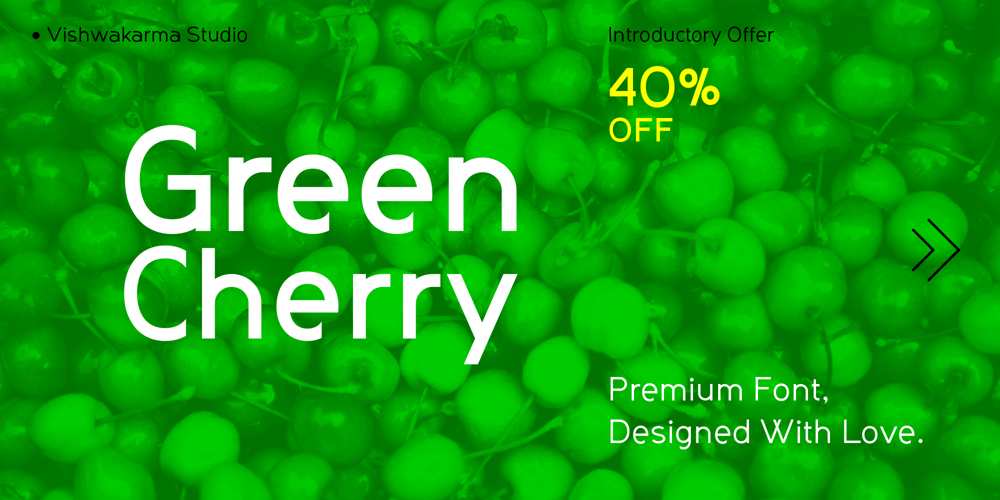
GreenCherry Font Family was designed by Brijesh Vishwakarma and published by Vishwakarma Studio. GreenCherry contains 3 styles and family package options. GreenCherry typeface is for regular texts. I have designed every glyph with kept perfection in mind. I also retained symmetry throughout all glyphs. They look very premium when placed together. The typeface has 3 fonts – Thin, Normal & Bold. Every font has 210 glyphs and supports Western European languages. It has essential OpenType features like Kerning and Hinting. Hence you can use it wherever you want. It works very well with print media and web media as well. This typeface is suitable for Websites, Apps, Blogs, Book Publication, Stationery, Signage, and other Printing media. I am sure you will enjoy this typeface.